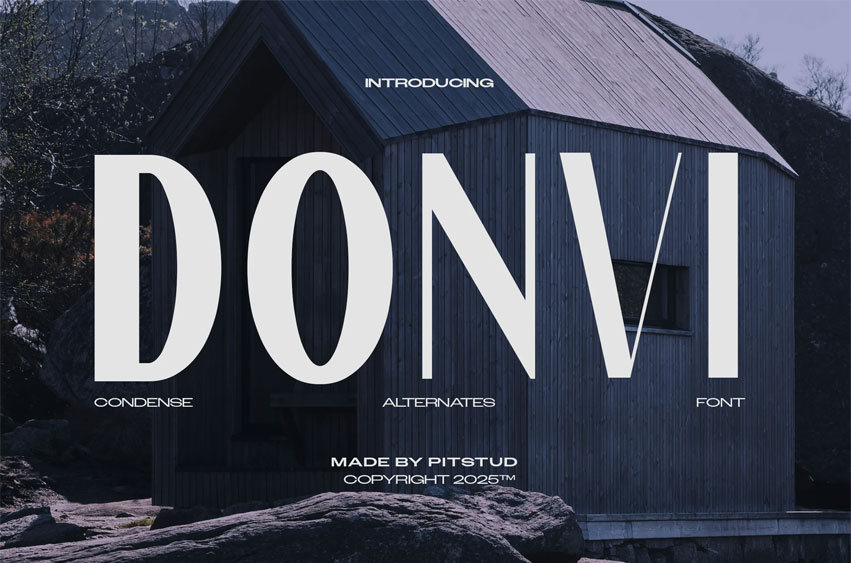
Donvi Font
Donvi Font is a sleek, contemporary typeface with condensed proportions and a bold weight, designed for strong impact and clean readability. Its refined minimalism brings modern sophistication and confident visual presence to any project.
Where It Works Best: From brand identity and editorial headlines to posters, packaging, and digital campaigns, Donvi delivers clarity and style. Its sharp structure adapts well across logos, website headers, and promotional materials.
• Condensed Bold Style with tall, narrow letterforms
• Complete Character Set: uppercase, lowercase, numbers, punctuation, symbols
• OpenType Features: alternates, ligatures, stylistic options
• Multilingual Support for global use
Why Choose Donvi? Blending modern aesthetics with strong condensed power, Donvi suits both professional and creative applications. It brings polish to branding, elegance to editorials, and striking visibility to signage and advertising.